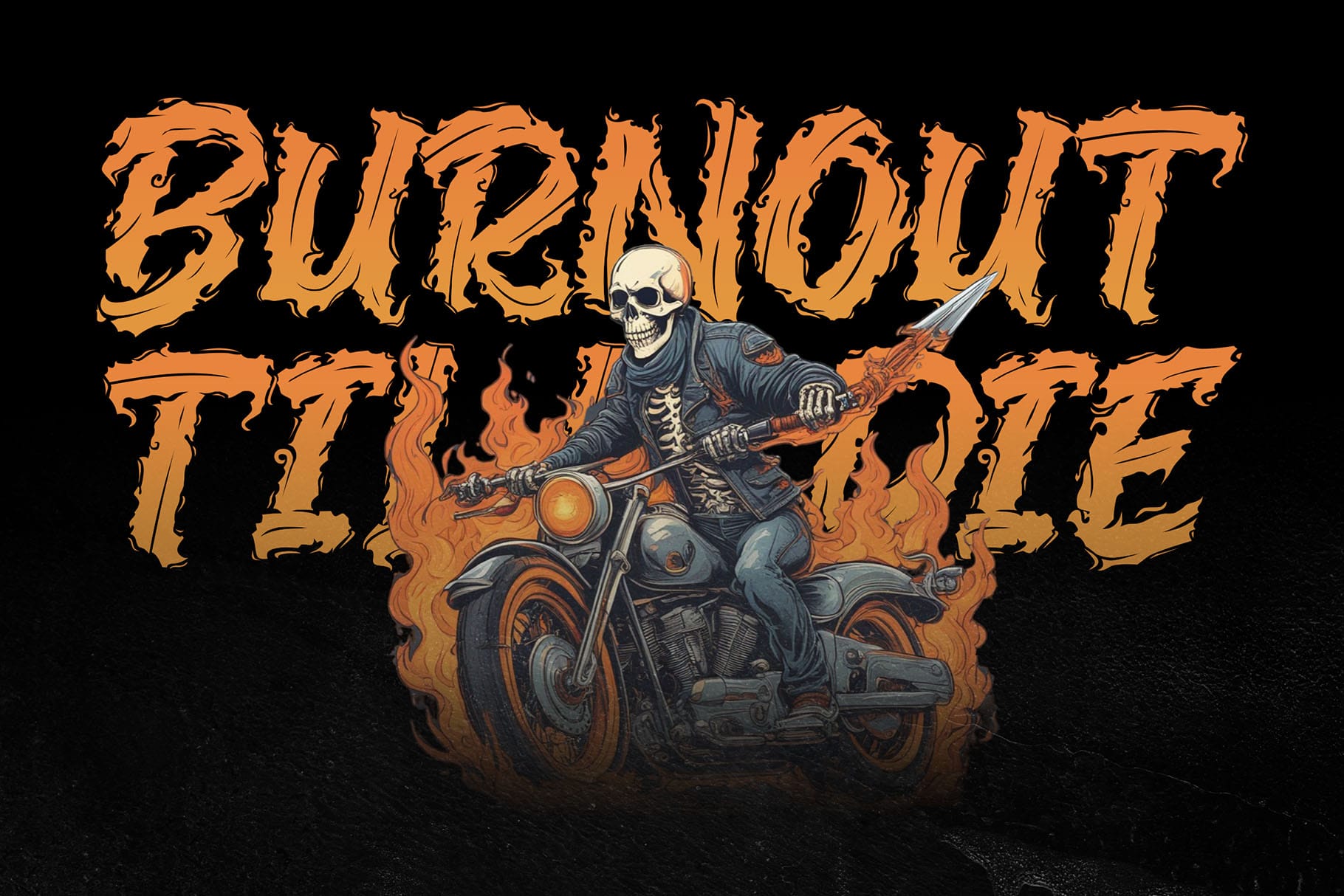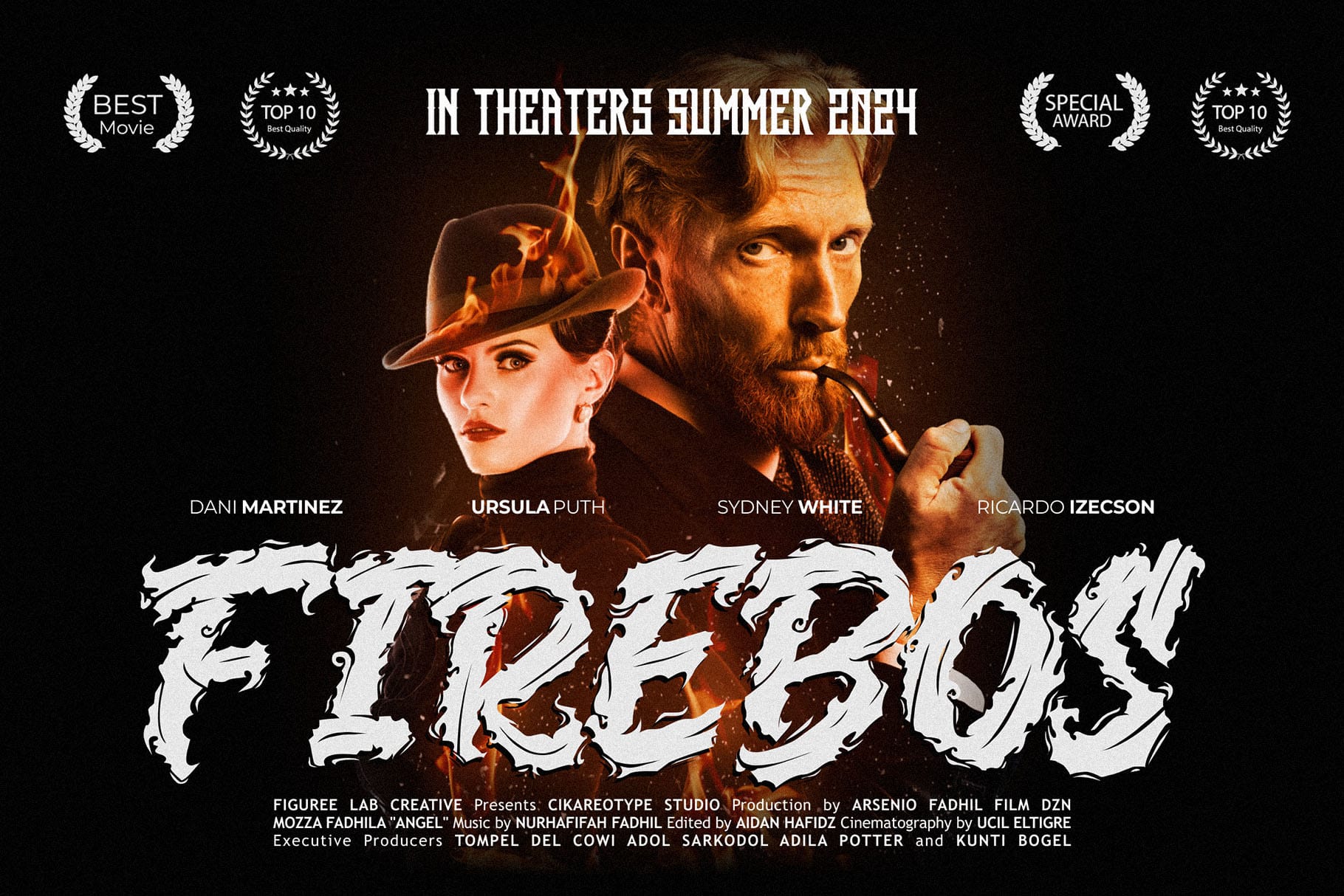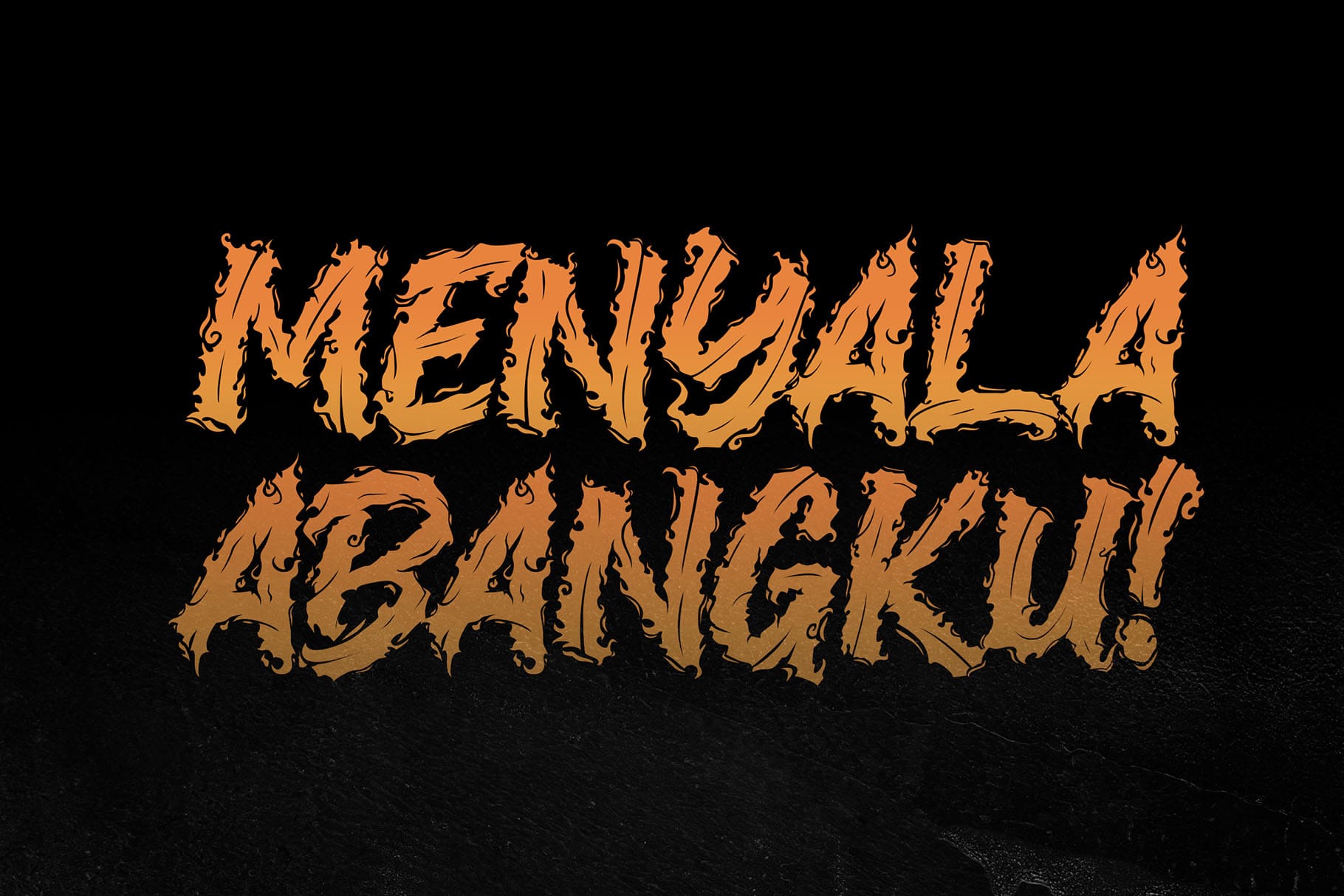
Black Fire
Black Fire Decorative Fire Font for Bold Creative Projects
Black Fire is a decorative fire font created for designs that need intensity, attitude, and a strong visual presence. With its onfire decorative personality, this font brings a fierce display style to titles, logos, posters, apparel graphics, packaging, and promotional visuals that need to stand out quickly.
Designed for buyers who want a bold statement font, Black Fire works beautifully when your project needs energy and drama without feeling overly complicated. Its flame-inspired visual direction gives text a powerful edge, making it a strong choice for brand designers, merchandise creators, content makers, event designers, and creative studios building visuals around action, heat, music, gaming, sports, streetwear, or bold entertainment themes.
This decorative fire font is especially useful when ordinary typography feels too quiet. Use it for words that need to become the focal point of the design. Whether you are creating a poster title, a product label, a YouTube thumbnail, a t-shirt graphic, or a campaign headline, Black Fire gives your typography a strong character from the first glance.
Black Fire has a decorative display style with a fiery, energetic mood. Its visual personality feels bold, dramatic, and expressive, making it suitable for projects that need heat, impact, and strong contrast.
The font is not made to disappear into the background. It is made for attention. Its decorative fire-inspired look helps headlines feel more alive and gives logos or poster text a strong thematic direction. For designers, this means less time trying to force personality into a layout. The font already carries a clear mood that can support the overall concept.
Black Fire can work well for projects with intense, edgy, adventurous, or entertainment-driven themes. It can support visuals for music artwork, esports graphics, extreme sports, motorcycle culture, streetwear drops, food branding with spicy themes, Halloween-style layouts, gaming thumbnails, and event promotions.
Because the font has a strong decorative style, it is best used for display text rather than long paragraphs. Use it for names, titles, short quotes, badges, labels, covers, and hero words where the typography needs to become the main visual feature.
Best Use Cases for a Decorative Fire Font
Black Fire is a practical choice for designers who create high-impact visual content. It can help your work feel sharper, hotter, and more memorable across both print and digital media.
Use Black Fire for logo concepts that need an intense personality. It can fit brands connected to music, gaming, energy drinks, spicy food, streetwear, sports, motorcycles, festivals, tattoo-inspired visuals, or bold entertainment identities.
For merchandise designers, Black Fire can bring strong typographic energy to t-shirts, hoodies, hats, stickers, patches, and print-on-demand products. Its dramatic style helps short words, slogans, and names feel more visually powerful.
For poster and promotional design, this font works well for event titles, gig posters, flyers, social media announcements, campaign headers, and digital ads. Its fiery decorative tone can help the main message feel urgent, energetic, and visually expressive without relying on too many extra design elements.
For packaging and labels, Black Fire can support products with a bold, spicy, smoky, hot, extreme, or action-inspired concept. It can be used for headline text, product names, limited edition labels, or hero typography on packaging mockups.
Key Features
• Decorative onfire display font style
• Standard characters included
• Punctuation included
• PUA encoded
Designers love Black Fire because it gives a project a clear visual direction fast. Instead of starting with a plain font and adding heavy effects afterward, you can begin with a typeface that already has a fiery decorative character.
For branding projects, Black Fire can help a concept feel stronger and more memorable. It is useful when the client needs something expressive, bold, and instantly recognizable. For posters and social media graphics, the font helps headlines carry the mood of the design before the viewer reads every detail.
For apparel and merchandise, Black Fire gives short phrases and brand names a powerful display presence. The font can support designs that feel energetic, rebellious, adventurous, or performance-driven.
Black Fire is made for designers who need typography with heat, confidence, and visual force. Use this decorative fire font to turn simple words into bold design moments for logos, posters, apparel, packaging, thumbnails, and promotional layouts.